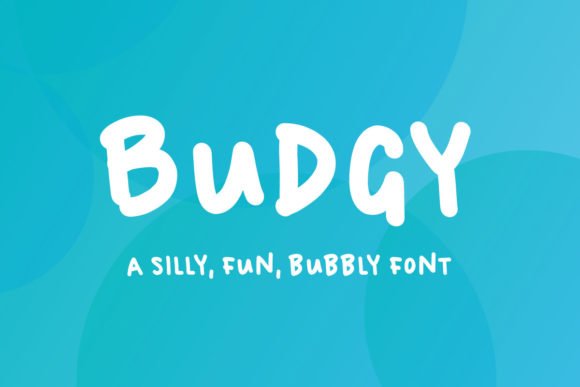
The Perfect Font for a Fun-Filled Summer
Who else is still reeling from the excitement of the summer season? I know I am! There’s something about the sun-kissed days, the sound of the waves, and the laughter of friends that just makes me want to create something special. And, as I was brainstorming ideas for a summer party invitation, I stumbled upon the perfect font – Budgy Font. This cool, incredibly cute, and bubbly handwritten font is exactly what I needed to add a touch of youth and joy to my design.
Budgy Font is more than just a font; it’s a way to capture the carefree spirit of summer. With its playful and whimsical feel, it’s perfect for designers who want to add a bit of personality to their projects. Whether you’re creating a party invitation, a swimming gathering invitation, or any design that requires a touch of fun, Budgy Font is a valuable addition to your toolkit.
Budgy Font Key Features
- Unique Characteristics: Hand-drawn, playful, and whimsical design with a mix of rounded and sharp edges
- Style Options: Includes 6 font styles: Regular, Bold, Italic, Bold Italic, Outline, and Shadow
Budgy Font Review
I recently had the chance to dive into the world of Budgy Font, and I must say it’s a fascinating typeface. Here’s my honest take on what I found.
- Unique Character: The Budgy Font is a one-of-a-kind typeface that’s sure to grab attention. Its quirky nature makes it perfect for adding a touch of personality to any project.
- Highly Customizable: With a wide range of customization options, you can tailor the font to fit your specific needs. Whether it’s adjusting the spacing or modifying the letterforms, Budgy Font gives you the flexibility you need.
- Fun and Playful: The font’s playful vibe makes it an excellent choice for creative projects, such as children’s books, magazines, or even advertisements.
- Limited Legibility: While the font is visually appealing, its unique design can sometimes make it difficult to read, especially in large blocks of text.
- Not Suitable for All Projects: Due to its playful nature, Budgy Font might not be the best choice for formal or professional projects where a more conservative typeface is required.
Overall, I think the Budgy Font is a fantastic addition to any designer’s toolkit. While it may have some limitations, its unique character and high level of customization make it a great choice for the right projects.
Tips for Getting the Most Out of Budgy Font
Use Budgy Font for playful and whimsical designs, such as children’s books, greeting cards, and social media graphics. Experiment with different font sizes and colors to create visually appealing combinations.
Budgy Font is commonly used for:
– Children’s book titles and headings
– Greeting cards and invitations
– Social media graphics and ads
– Branding and logo design